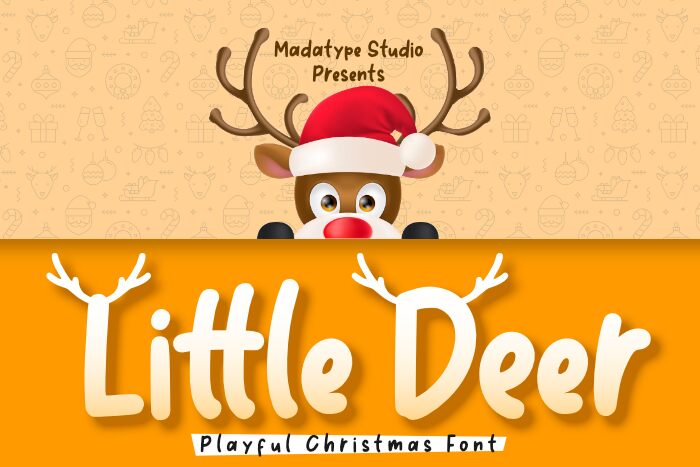
Little Deer by Andrimada Creative is a charming and playful handwritten font that exudes a childlike innocence. Its semi-condensed width adds to its overall legibility, making it perfect for posters, book covers, and social media graphics. The unique character of this typeface is ideal for children's books, storybooks, and fairy tale illustrations. Its whimsical style also makes it suitable for creative branding projects like cafes or boutique stores. With its distinctive look and feel, Little Deer is sure to add a touch of magic to any design project.